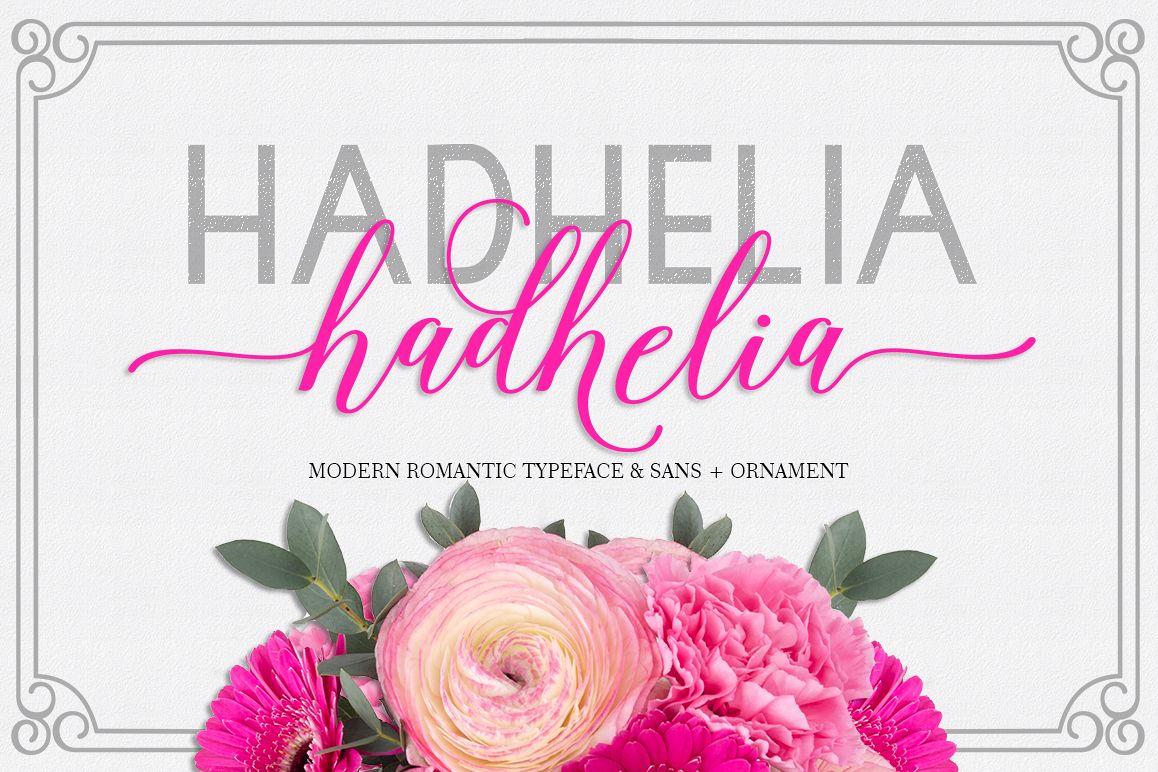
Hadhelia Script, Sans, Ornament
Hadhelia Sans
Ornament Extra
Hadhelia Script
**Hadhelia Script** is modern calligraphy design, including Regular, Sans and Ornament. This font is casual and pretty with swashes. Can used for various purposes. such as logo, product packaging, wedding invitations, branding, headlines, signage, labels, signature, book covers, posters, quotes and more.
Hadhelia Script features OpenType stylistic alternates, ligatures and International support for most Western Languages is included. To enable the OpenType Stylistic alternates, you need a program that supports OpenType features such as Adobe Illustrator CS, Adobe Indesign & CorelDraw X6-X7, Microsoft Word 2010 or later versions.